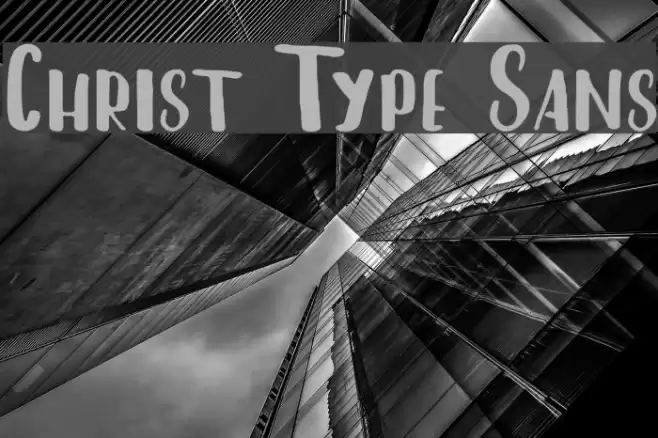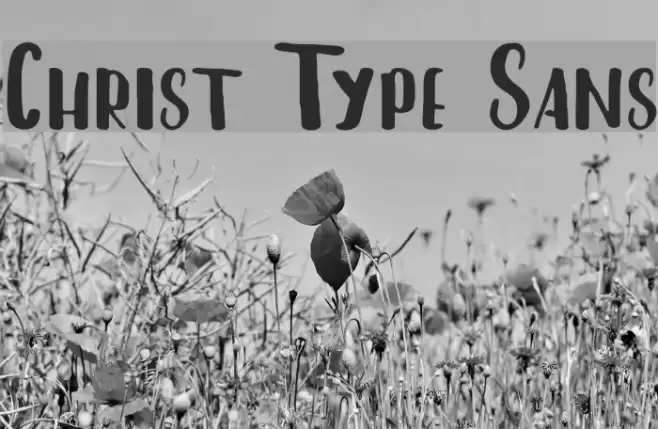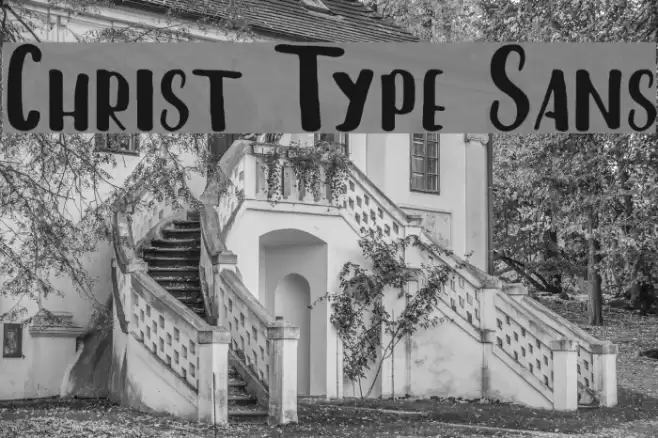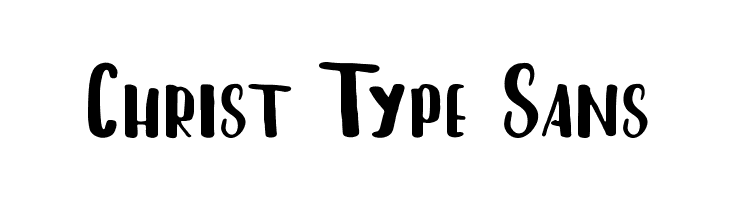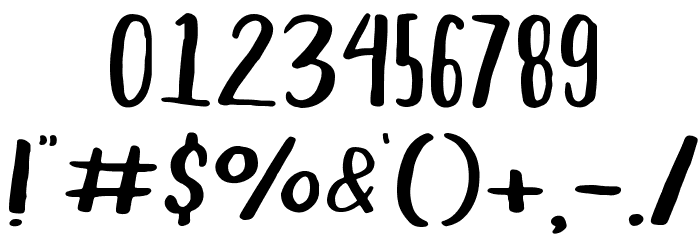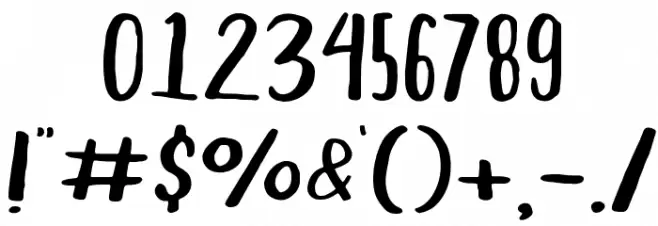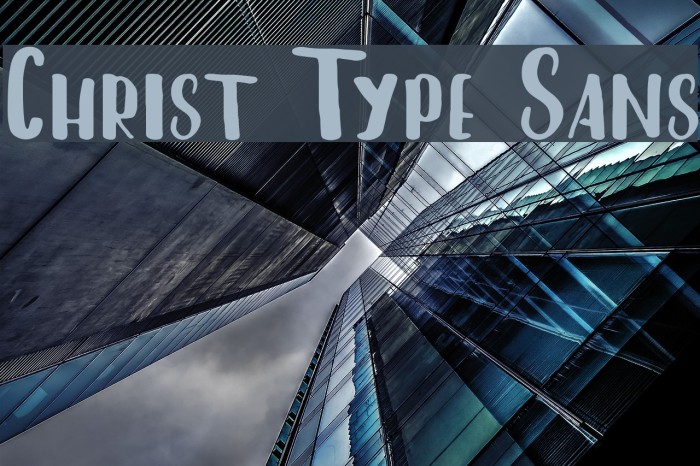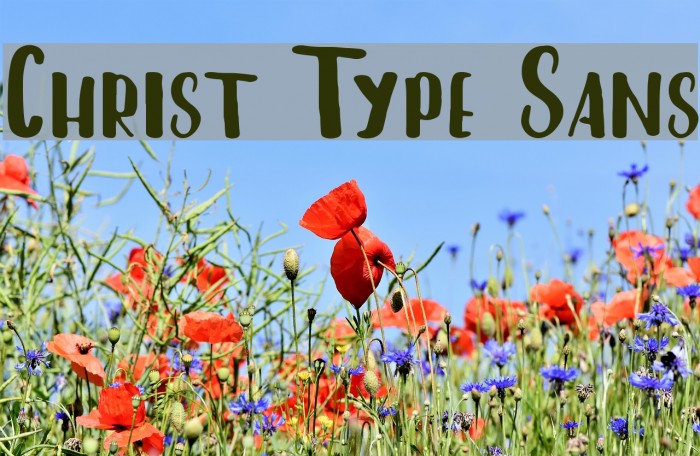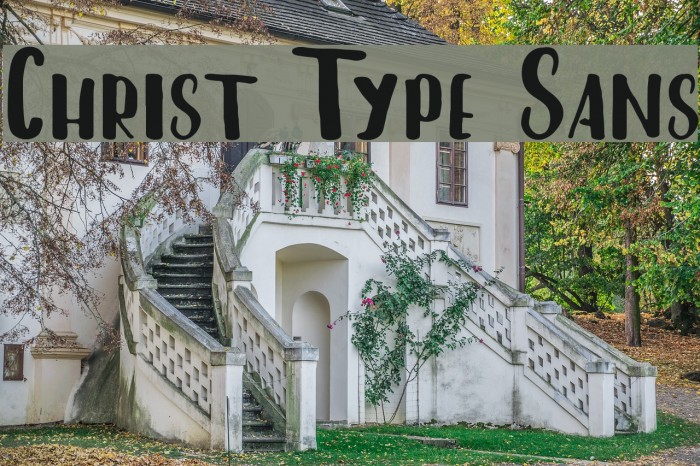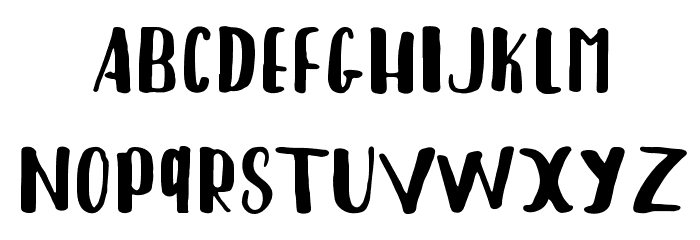
Christ Type Sans Font
Christ Type Sans Description
This font features a bold and playful design with a hand-drawn aesthetic. The characters are slightly irregular, giving it a whimsical and artistic feel. The uppercase letters are prominent and rounded, while the lowercase letters maintain a consistent style with a touch of flair. The numbers are clear and easy to read, matching the overall playful tone. Special characters are creatively designed, adding to the font's unique personality. This font is ideal for projects that require a fun and engaging look, such as children's books, posters, or creative branding.
A bold, playful font with a hand-drawn, artistic style from Uncategorized fonts.
- Proposed Projects: Children's books, posters, creative branding, invitations, and playful designs.
- Overall Style: Playful, Artistic, Whimsical